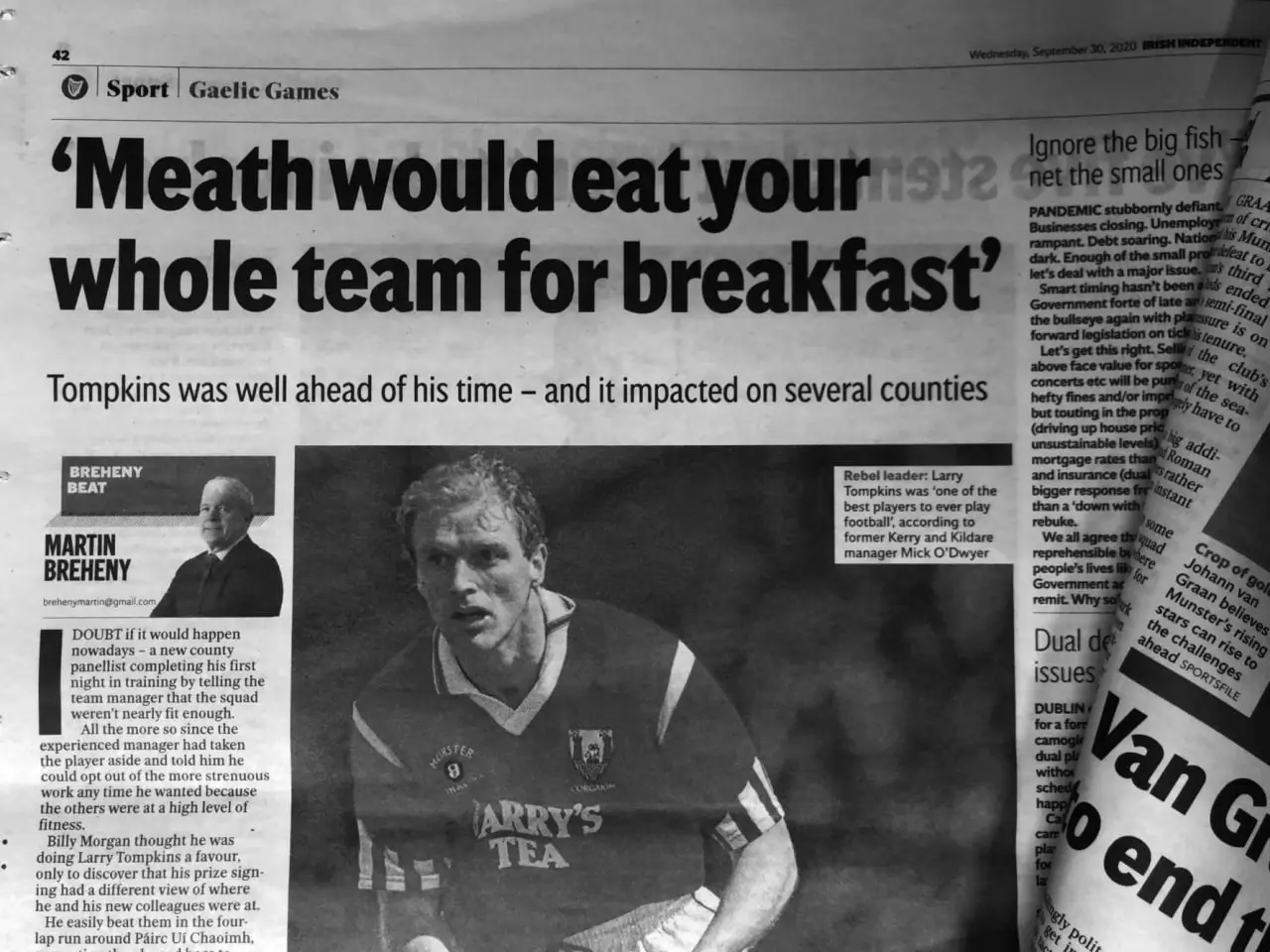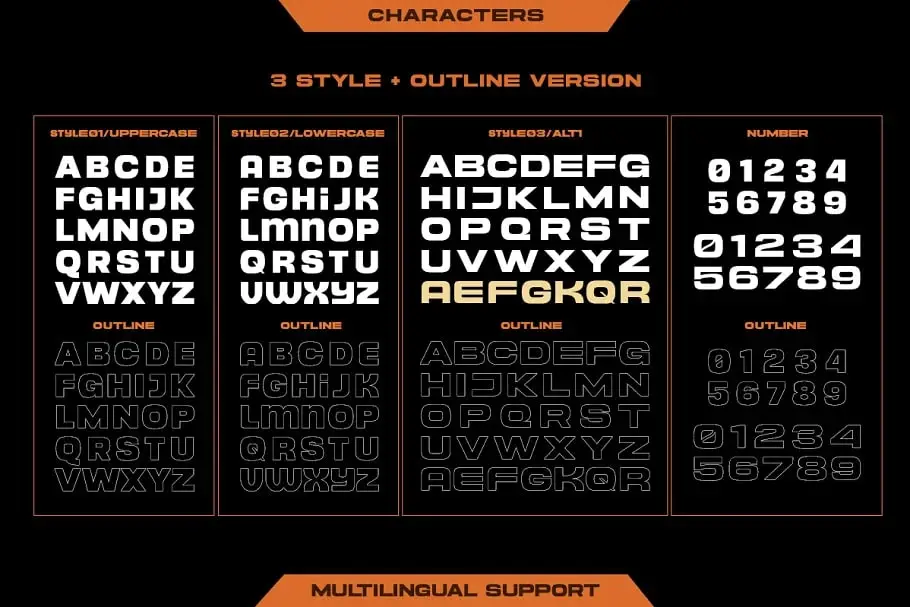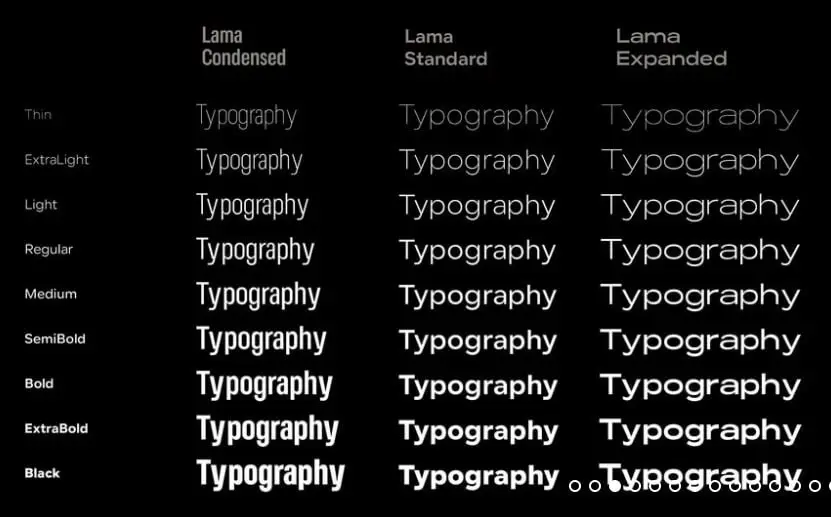
Welcome back, creative legends! 🚀 We’re diving headfirst into Brushespack Collection Part 86, a treasure trove of digital goodies that will supercharge your design workflow. From sleek sans serifs to bold stencil fonts and playful illustrations, this drop has something for every project on your mood board. Let’s explore these 20 stunning assets together! 🎨✨
Top 20 Brushespack Collection Part 86 Picks
Mick Kelly-Beauty Modern Font
This elegant typeface is pure sophistication! 🌸 With its graceful curves and clean lines, the Mick Kelly-Beauty Modern Font is your go-to for branding, invitations, and any project that needs a touch of class. It comes with multiple weights to give you total flexibility!
Lama Sans Typeface
Clean, modern, and incredibly versatile — Lama Sans is your new best friend for web and print design. 🖥️📄 With Regular, Bold, and Light weights, it handles everything from logo headers to body text like a champ!
Klim Karbon & Karbon Slab Stencil Font Families
Industrial meets modern with these stencil font families! 🔧💥 The Karbon and Karbon Slab bring a distinctive, edgy vibe perfect for branding, posters, and UI designs. Multiple weights mean you can layer up the attitude!
Kross Neue Grotesk Minimal Sans Serif Typeface
Minimalism at its finest! 🧘♂️ Kross Neue Grotesk features geometric shapes and clean lines that scream modern sophistication. It’s a dream for logo work, editorial layouts, and any project craving a sleek, no-nonsense aesthetic.
Hictor Petrol
Get ready to turn heads with Hictor Petrol! 🚗💨 This high-resolution design asset brings rich, crisp visuals that are super easy to customize. Perfect for branding, web design, and social media graphics that need that extra pop.
Granbury-Modern Stylish
Contemporary flair meets versatility! ✨ Granbury-Modern Stylish offers a variety of modern design elements that are perfect for branding kits, marketing materials, and more. High quality and super easy to tweak!
Gramatika 3 004 Font Cyrillic
Designed specifically for Cyrillic scripts, Gramatika 3 004 is a clean and contemporary typeface that doesn’t sacrifice legibility. 🇷🇺📜 Multiple weights make it a powerhouse for Russian-language branding, websites, and publications.
Hishand Studio-Agraham Serif Font
Elegance and readability walk hand in hand with Agraham Serif Font. 🖋️📖 Its classic serif design, paired with multiple weight options, makes it ideal for logos, editorial layouts, and any project that demands timeless charm.
Feature Mono By Anastasia Vrublevskaya
Love that coding-meets-design aesthetic? 💻👩🎨 Feature Mono is a stunning monospaced typeface that looks clean and contemporary. Perfect for modern branding, tech projects, or adding a nerdy-chic vibe to your work!
Glither (C) Alit Design
Unleash your creativity with Glither (C) Alit Design! 🎉 This pack is packed with high-quality, customizable elements that work seamlessly with popular design software. Ideal for graphic designers and marketers who want to stand out.
Designsation-Byutih Sans Typeface
Elegant, clean, and modern — that’s the Designsation-Byutih Sans Typeface in a nutshell! 🌟 With Regular, Bold, and Italic styles, this sans-serif beauty is ready for everything from brand guides to digital media.
Creative Corner Canera Simple Elegant Typeface
Sophistication meets simplicity with Canera! 🕊️ Its clean lines and elegant curves bring a touch of class to any branding project or print material. Multiple weights give you all the versatility you need.
Crocula Font By Remedy
Crocula is the perfect blend of modern and classic vibes! 🔥 Whether you’re designing a logo or a poster, this font’s unique style and multiple weights will elevate your creative projects instantly.
Cyberion-Futuristic Tech Font
Step into the future with Cyberion! 🤖⚡ This cutting-edge tech font features sleek lines and unique character shapes that scream innovation. Ideal for tech branding, gaming logos, and sci-fi-inspired designs.
Black Dread Death Metal-By Ardana Creative
Rock out with Black Dread Death Metal! 🎸🤘 This striking font captures the dark, aggressive spirit of heavy metal. Perfect for album covers, band logos, and merch that needs to make a loud statement.
Bc Thomas & Ruhller Briefcase Type Foundry
A whole type foundry in one pack! 🏢📦 This collection includes serif, sans-serif, and display options to cover all your design needs. Perfect for personal and professional projects that crave variety and quality.
A2 Type Nuacht Font Family Complete (Text Headline Sans)
Nuacht is the total package for text and headlines! 📰🌟 This complete font family features multiple weights with clean, modern lines. It’s a must-have for branding, web design, and editorial projects.